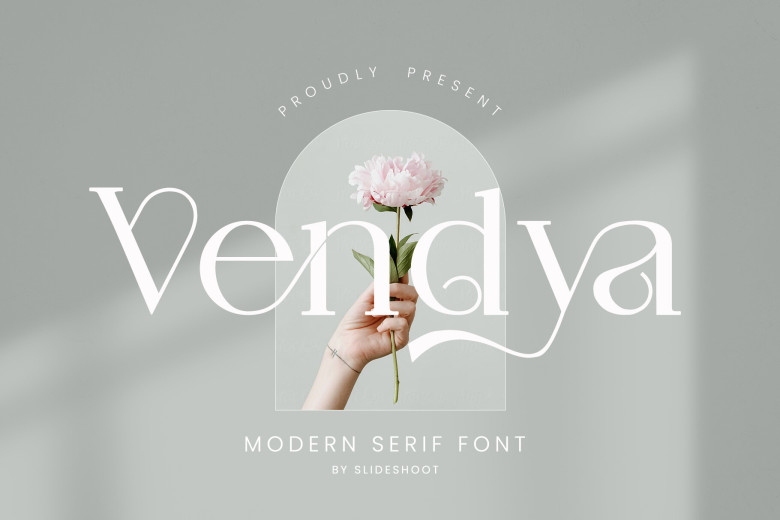
Vendya Font
The serif font Vendya is elegant and well-proportioned, with a slender line to it. Meanwhile, it still looks gorgeous! It’s ideal for wedding Invitations, business Cards, labels, and logos along with film titles. Loading up Vendya into your computer, you can give birth to unlimited design ideas in no time at all even for, say, the brand of your mother’s company or a real nice book she’s been thinking about writing now for years (in fact, I’m workingon her memoir now).
Vendya is a softened serif font featuring a luxurious feel Ibanks. This elegant font is the perfect match for any project, with its elegant variations and ligatures.
Vendya Serif Font